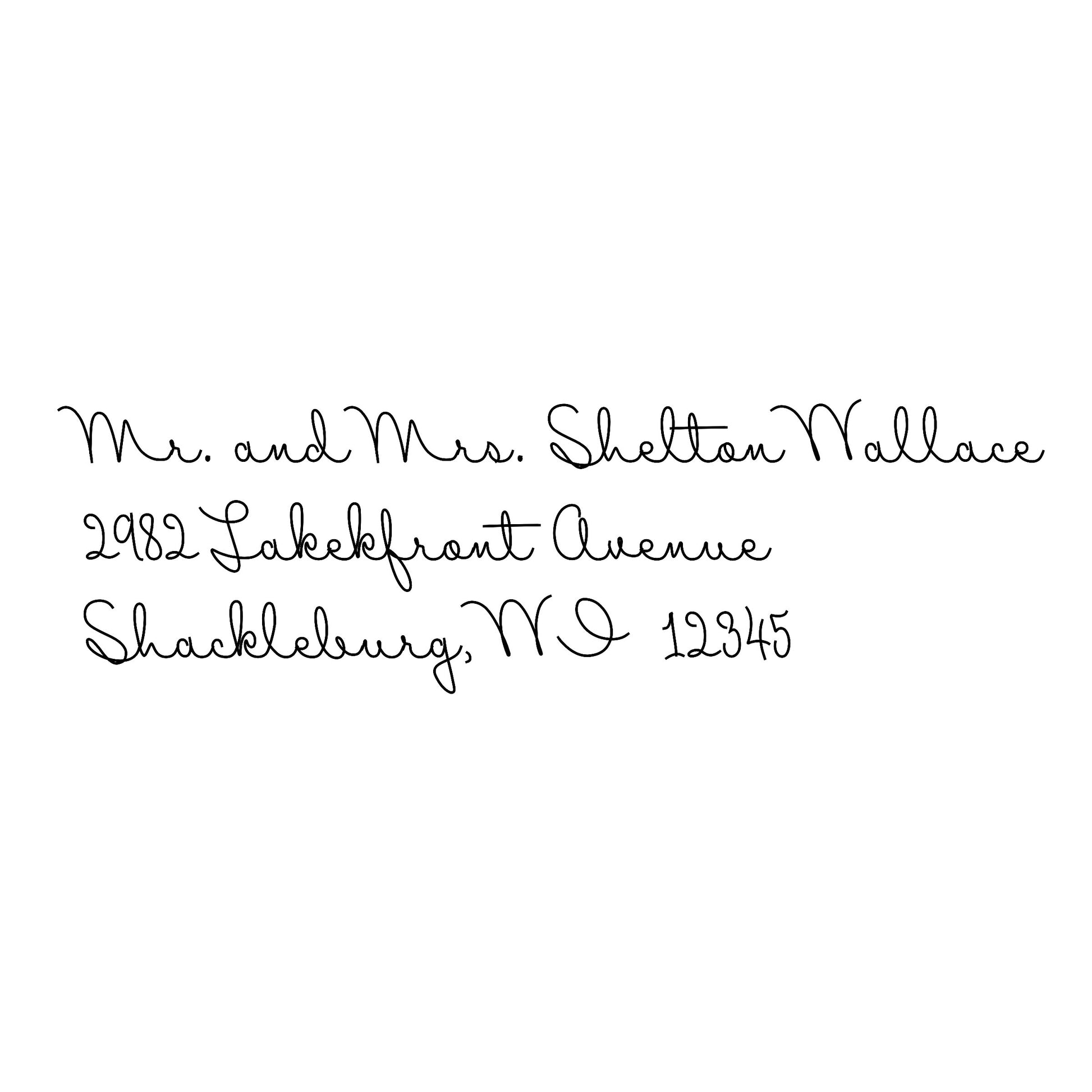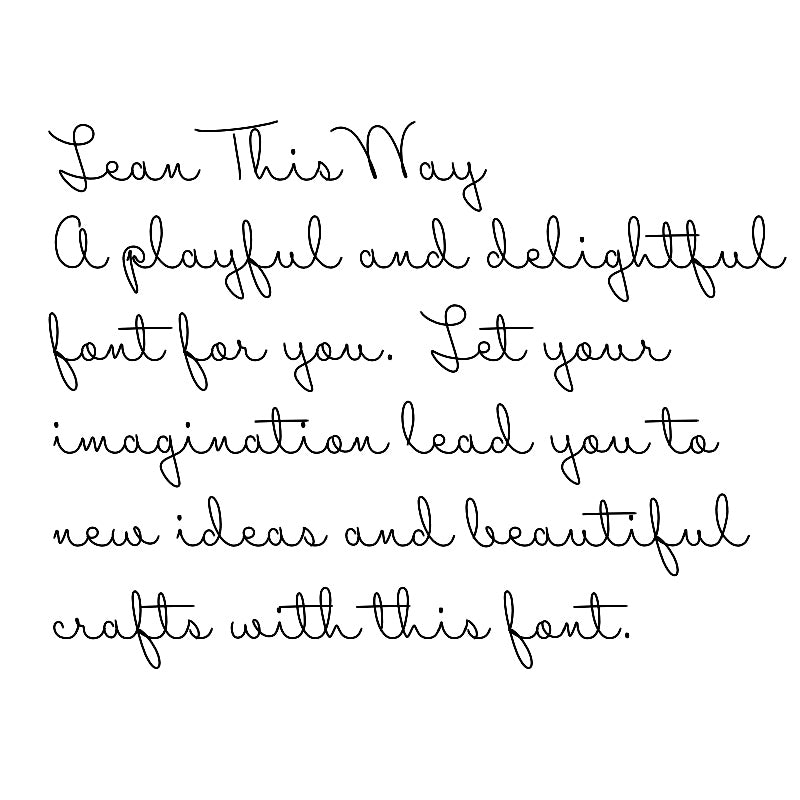
SLF Lean This Way – Left-Leaning Single Line Font for Engraving & Crafts
SLF Lean This Way is a distinctive single line print font that slants to the left, giving it an uncommon, eye-catching personality. That backward lean makes it perfect for designs that need a quirky twist, a playful vibe, or a standout headline—while still engraving cleanly and staying easy to read.
Use it for engraving, scoring, pen tools, Foil Quill projects, and modern craft designs on everything from labels and tags to signs and gifts.
• Pen plotters and Foil Quill projects
• Labels, tags, signs, and playful modern layouts